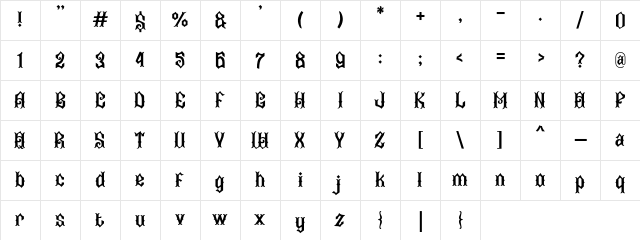
Abima Regular
Abima Family
Complete Abima Regular glyph index. Displaying only characters natively supported by Abima Regular font.
Design Context for Abima
Abima is a composed and adaptable typeface that performs quietly and consistently across a wide range of design contexts.